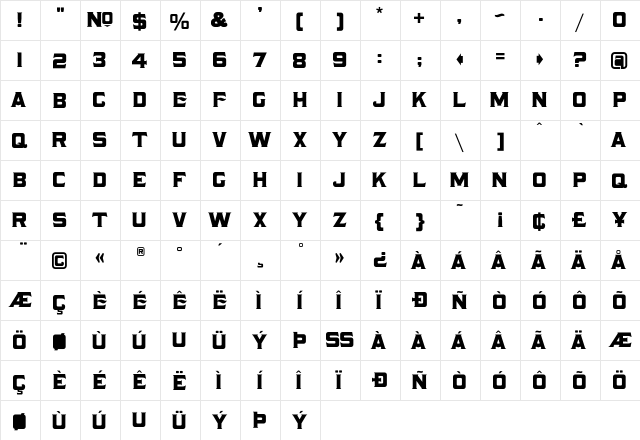
LHFNaylorville Regular
Design Context for LHFNaylorville Typeface
LHFNaylorville offers clean, dependable letterforms without strong stylistic allegiance, making it a practical choice for designers who need flexibility.